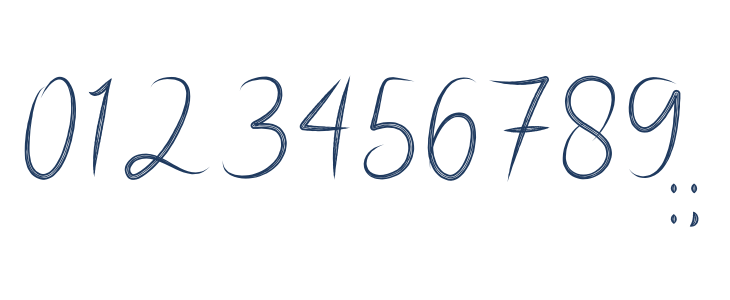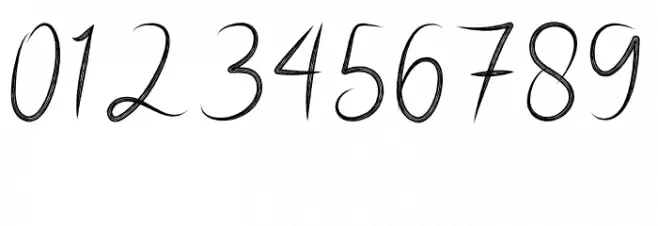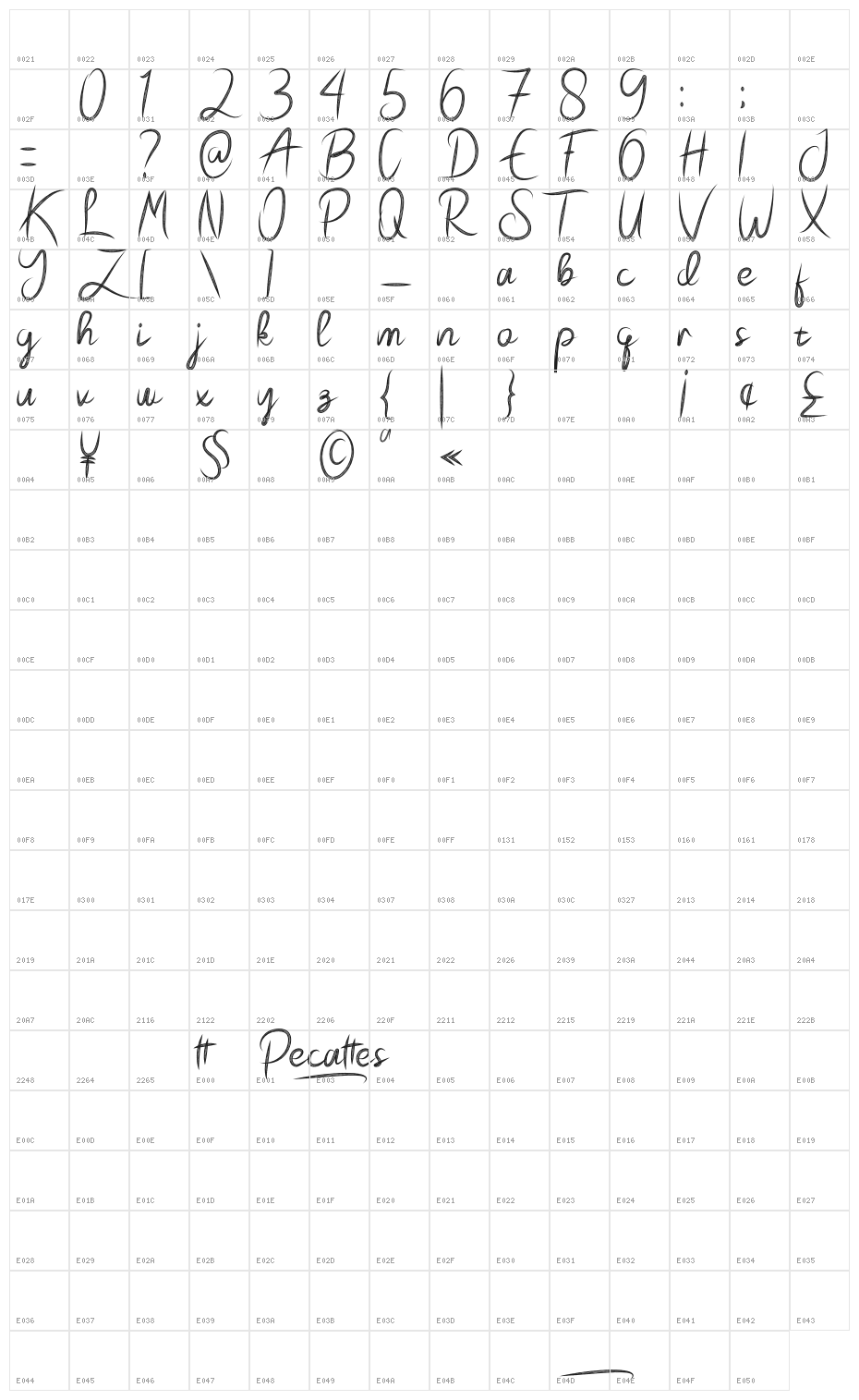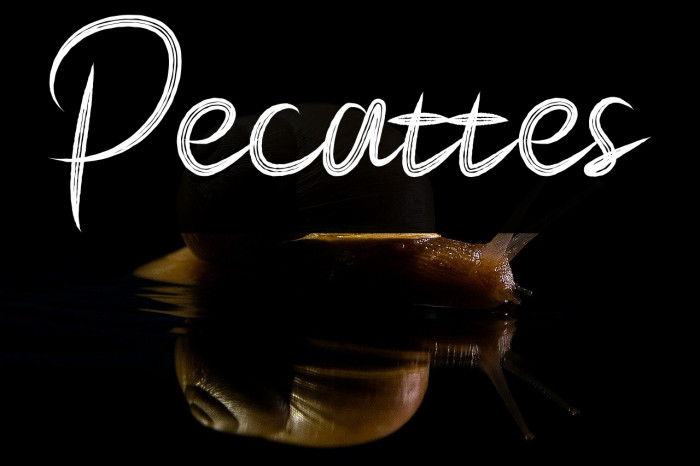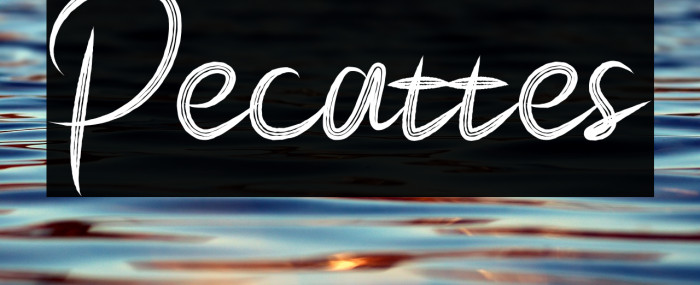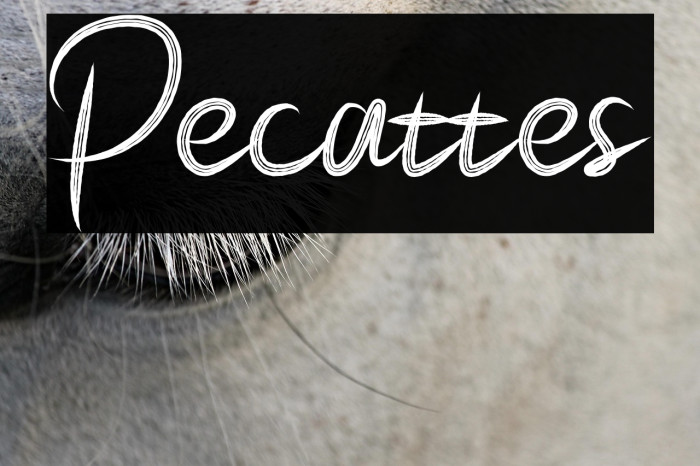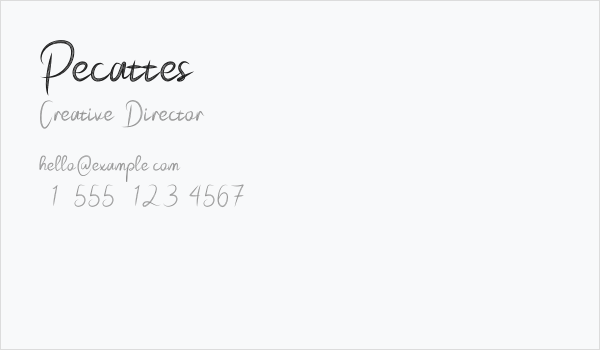
Pecattes Font
Pecattes Description
This font features a dynamic and flowing script style, characterized by its elegant and elongated letterforms. The strokes are smooth and fluid, giving a sense of movement and grace. Each character is uniquely crafted, with varying stroke widths that add a touch of sophistication and artistic flair. The uppercase letters are bold and prominent, while the lowercase letters maintain a consistent rhythm and balance. The numerals are distinct and easily readable, complementing the overall aesthetic. This font exudes a sense of creativity and elegance, making it suitable for a variety of design projects.
A dynamic and elegant script font with flowing, artistic letterforms from Regular fonts.
- Proposed Projects: Ideal for wedding invitations, branding, greeting cards, and artistic projects.
- Overall Style: Elegant, Artistic
- Use Case: Logos, Invitations, Artistic designs